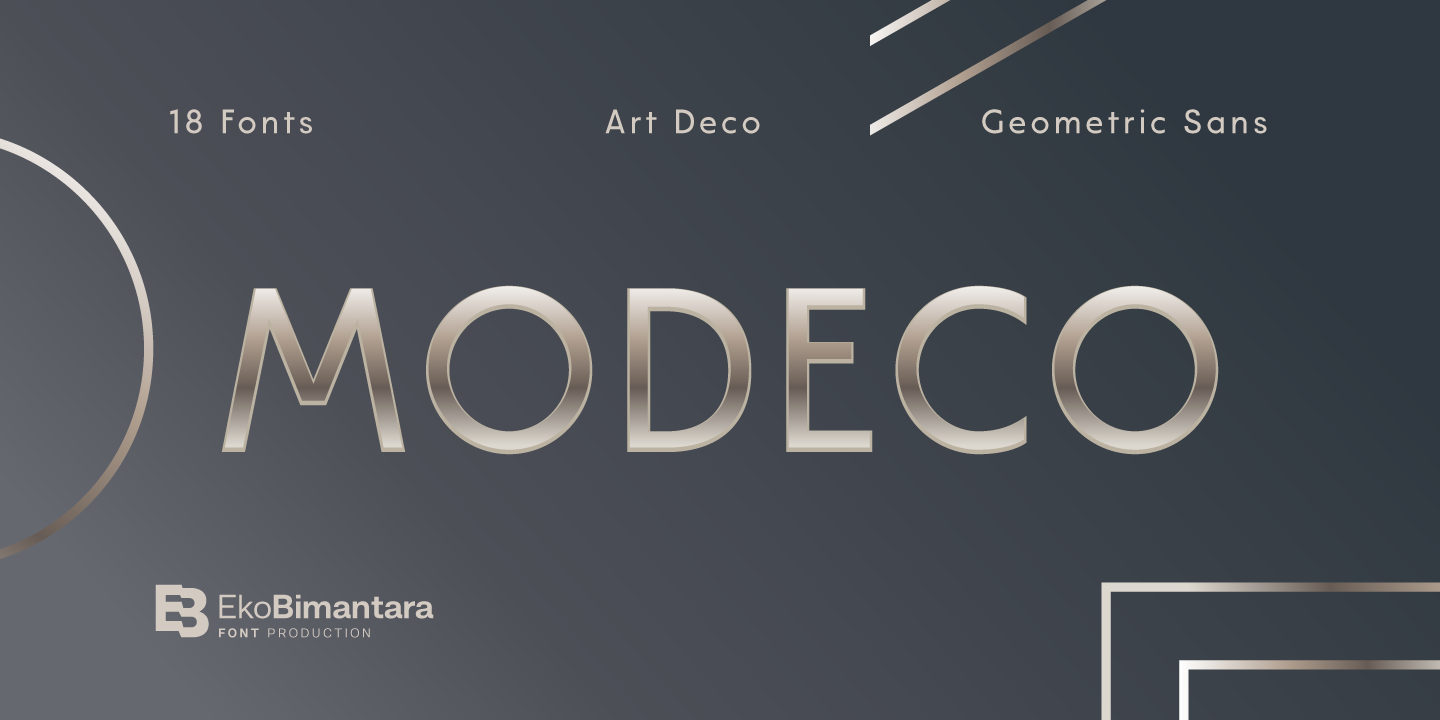
Modeco Font is perfect for Art Deco revival projects, luxury hotel branding, sophisticated cocktail lounges, vintage-inspired fashion labels, elegant jewelry packaging, premium automotive marketing, upscale interior design presentations, classic architectural signage, refined entertainment venues, and distinguished lifestyle brands. This sophisticated typeface excels in applications where Art Deco elegance and modern luxury need to be communicated with geometric sophistication and streamlined glamour that embodies the essence of 1920s design refinement and the timeless appeal found in classic modernist aesthetics and luxury lifestyle experiences.
What makes Modeco Font exciting is its remarkable ability to capture the geometric elegance and sophisticated glamour of the Art Deco movement through its precisely structured letterforms that embody the clean lines, bold geometry, and luxurious refinement that defined the golden age of modernist design and sophisticated urban culture. The font reflects the spirit of Jazz Age sophistication with its streamlined construction and elegantly proportioned characters that suggest the optimistic modernity and refined luxury that characterized the roaring twenties. Its meticulously crafted character details and sophisticated personality create an atmosphere of timeless elegance that resonates with luxury brands, design professionals, and cultural institutions who appreciate the enduring appeal of Art Deco design principles and the sophisticated glamour of classic modernist aesthetics.
The Modeco Font family typically includes Light, Regular, Medium, and Bold weights, each maintaining the signature Art Deco characteristics and geometric sophistication. Some versions offer enhanced decorative variants inspired by classic Art Deco ornaments, alternative character sets with period-appropriate symbols, and specialized treatments that amplify the luxurious aesthetic. The family may also include condensed styles for efficient luxury layouts and display cuts optimized for maximum elegant impact in high-end applications requiring authentic Art Deco credibility and sophisticated glamour.
Whether you're creating luxury brand identities, Art Deco revival materials, or sophisticated lifestyle communications, Modeco Font Free Download delivers the perfect geometric elegance your luxury-focused projects deserve. Its Art Deco character and sophisticated styling make it an invaluable choice for luxury brands, high-end hospitality, and premium lifestyle businesses working in luxury goods, sophisticated entertainment, and elegant lifestyle sectors where authentic Art Deco sophistication and timeless geometric elegance are essential for attracting discerning clientele who appreciate the refined glamour and sophisticated design heritage of classic modernist luxury.